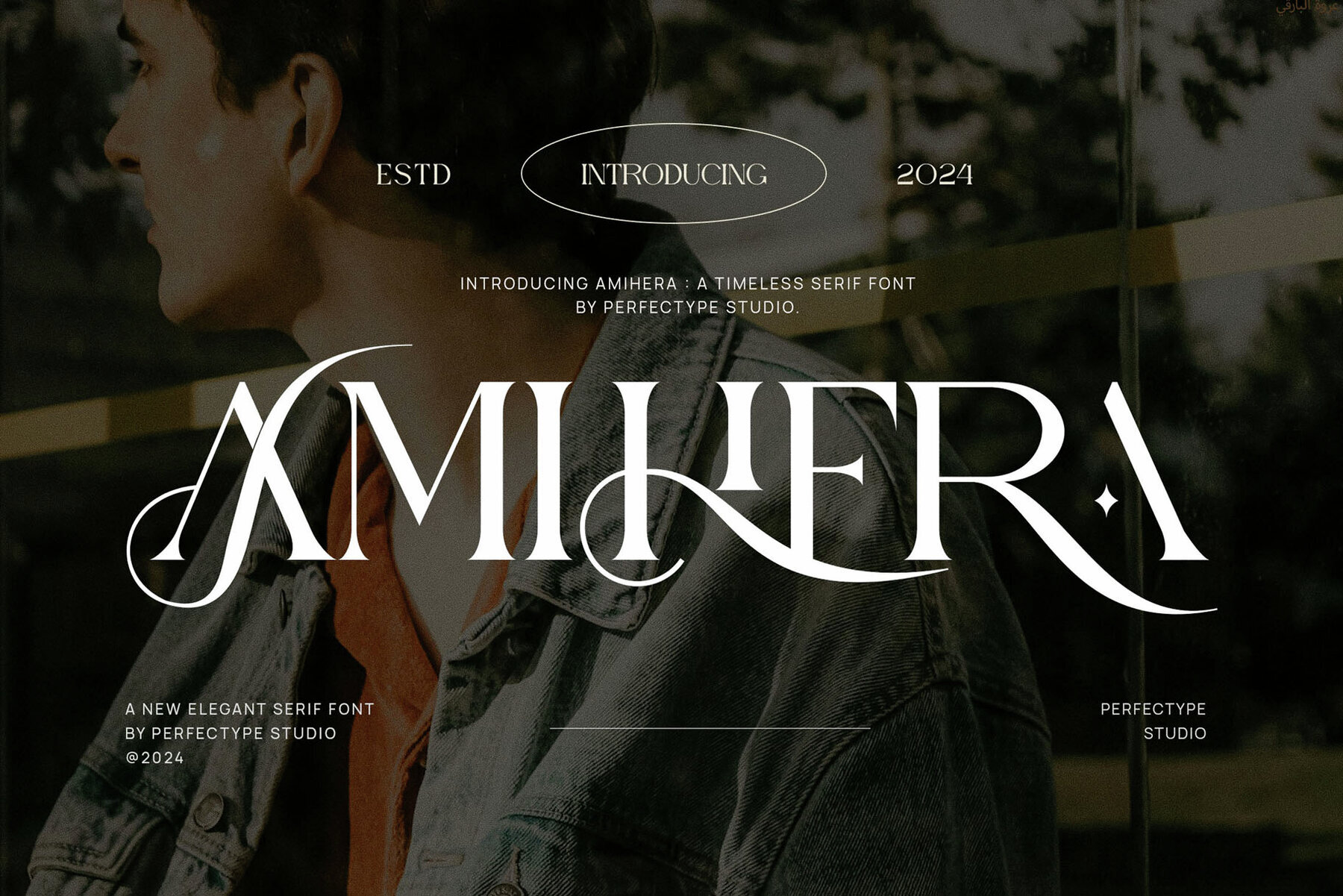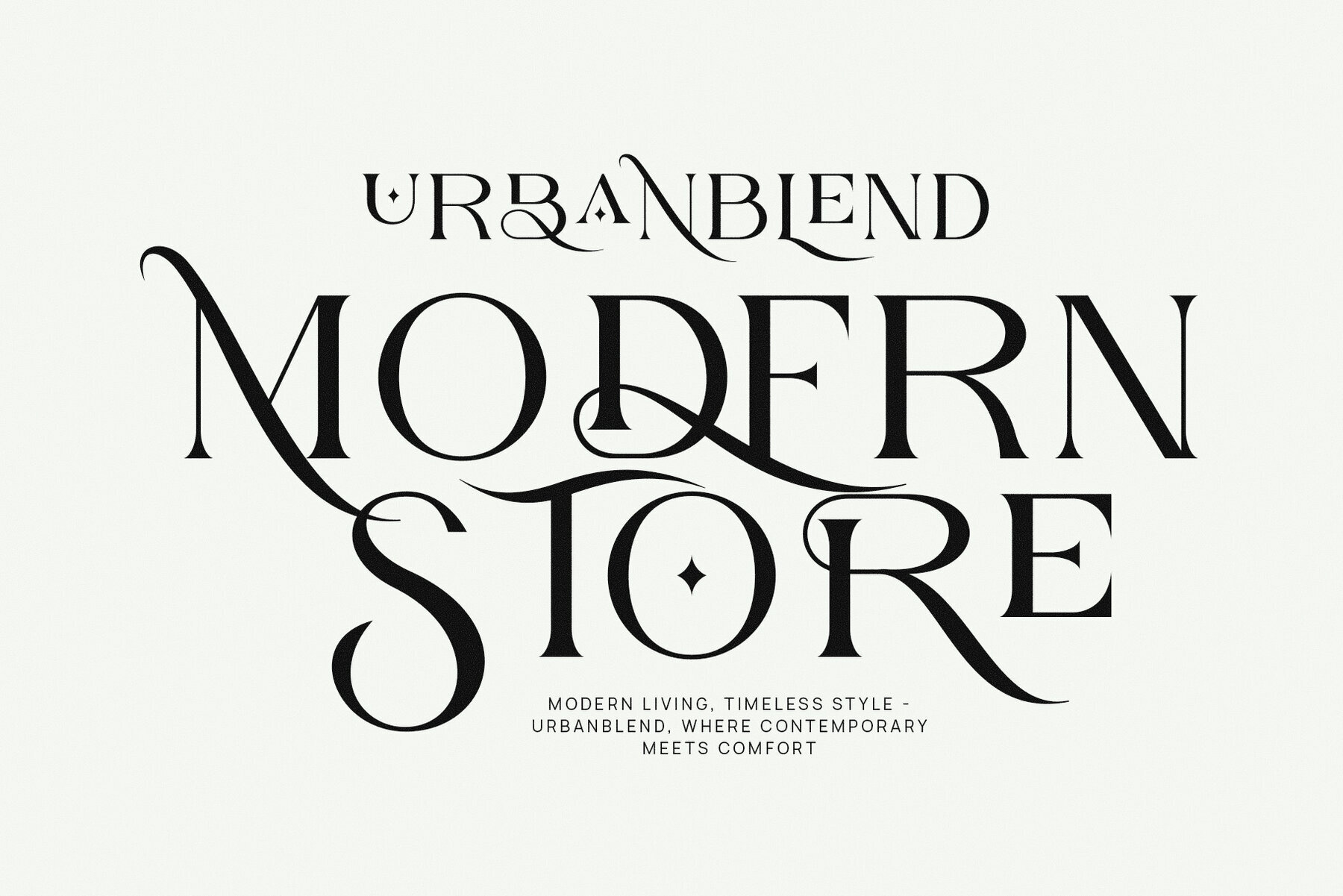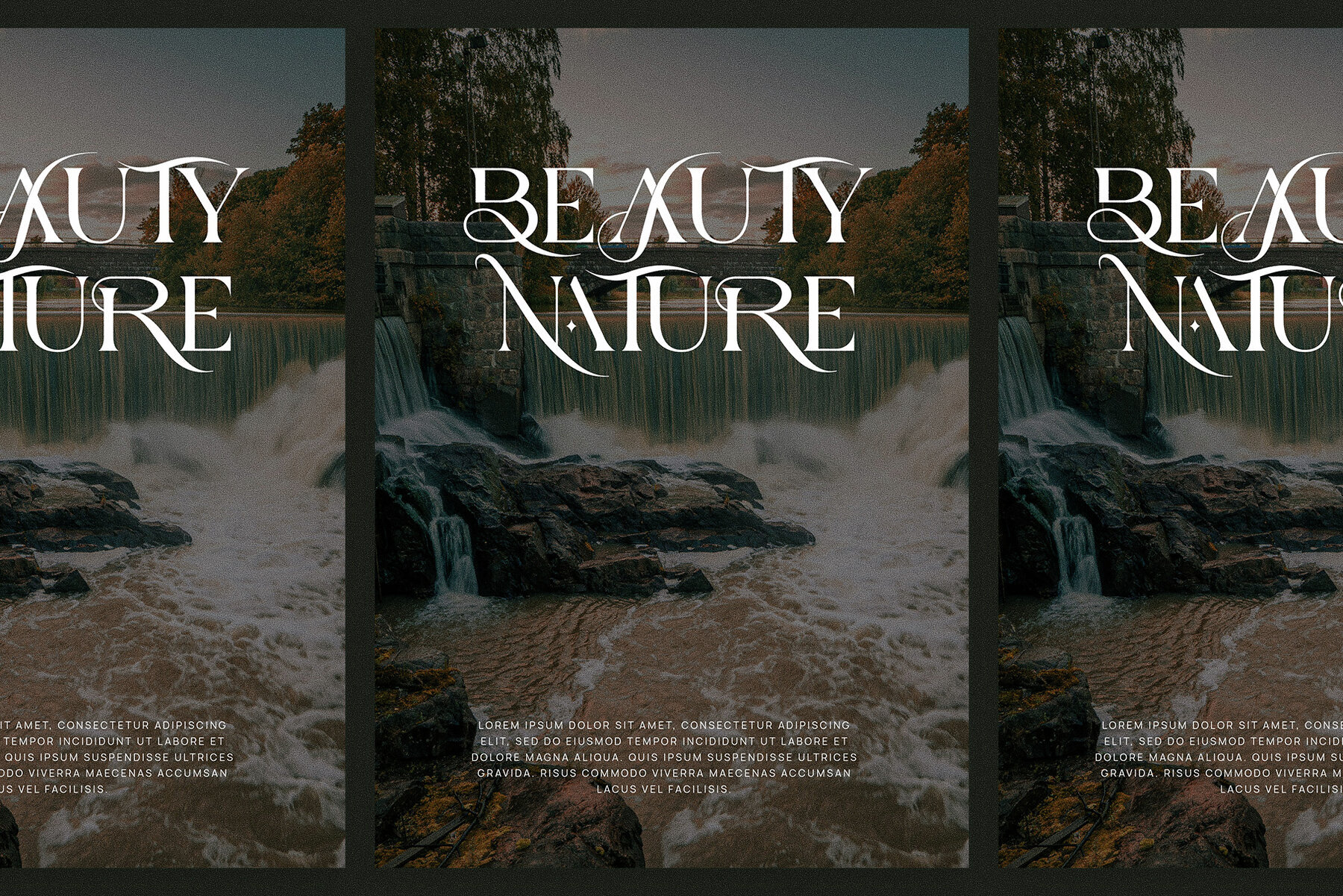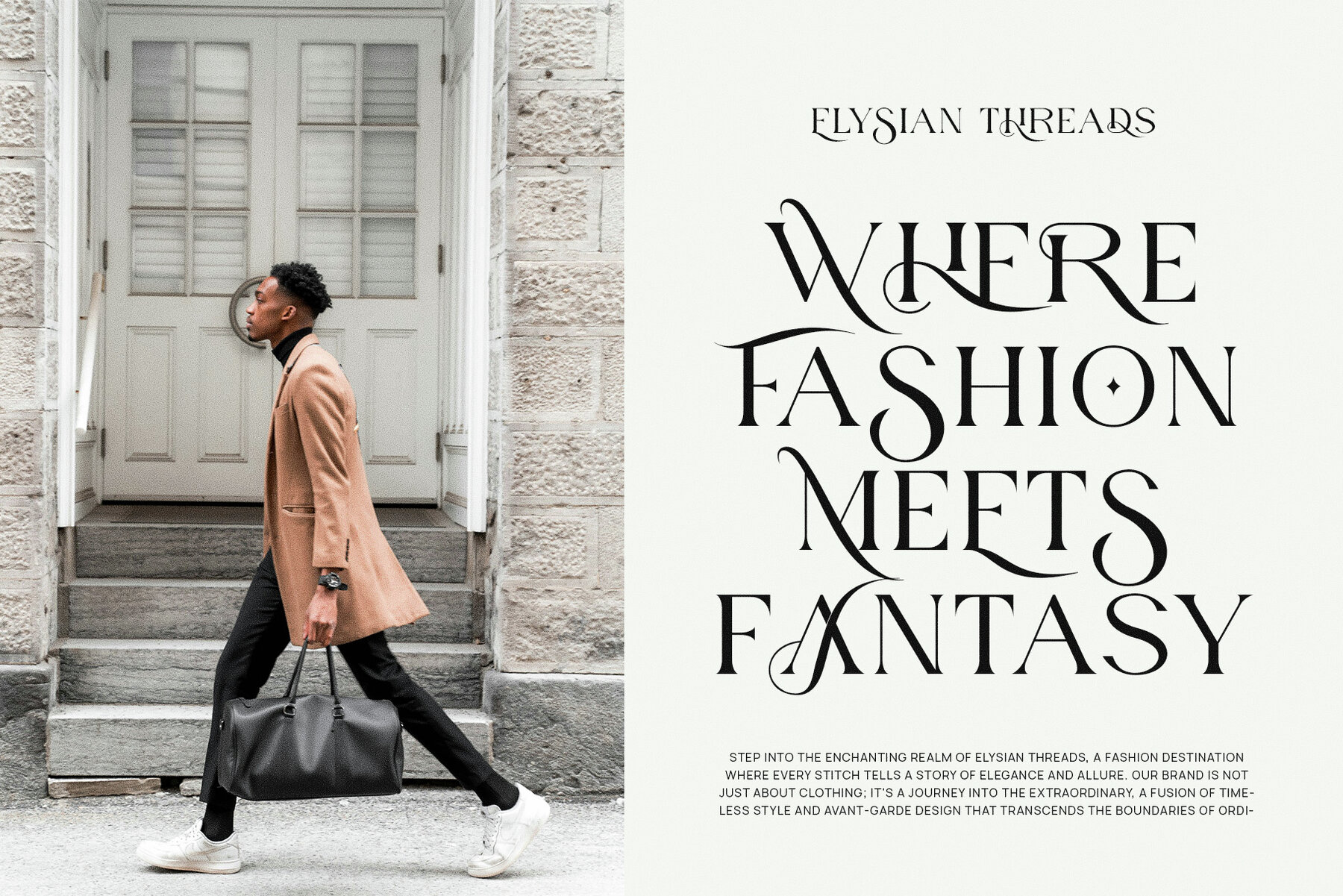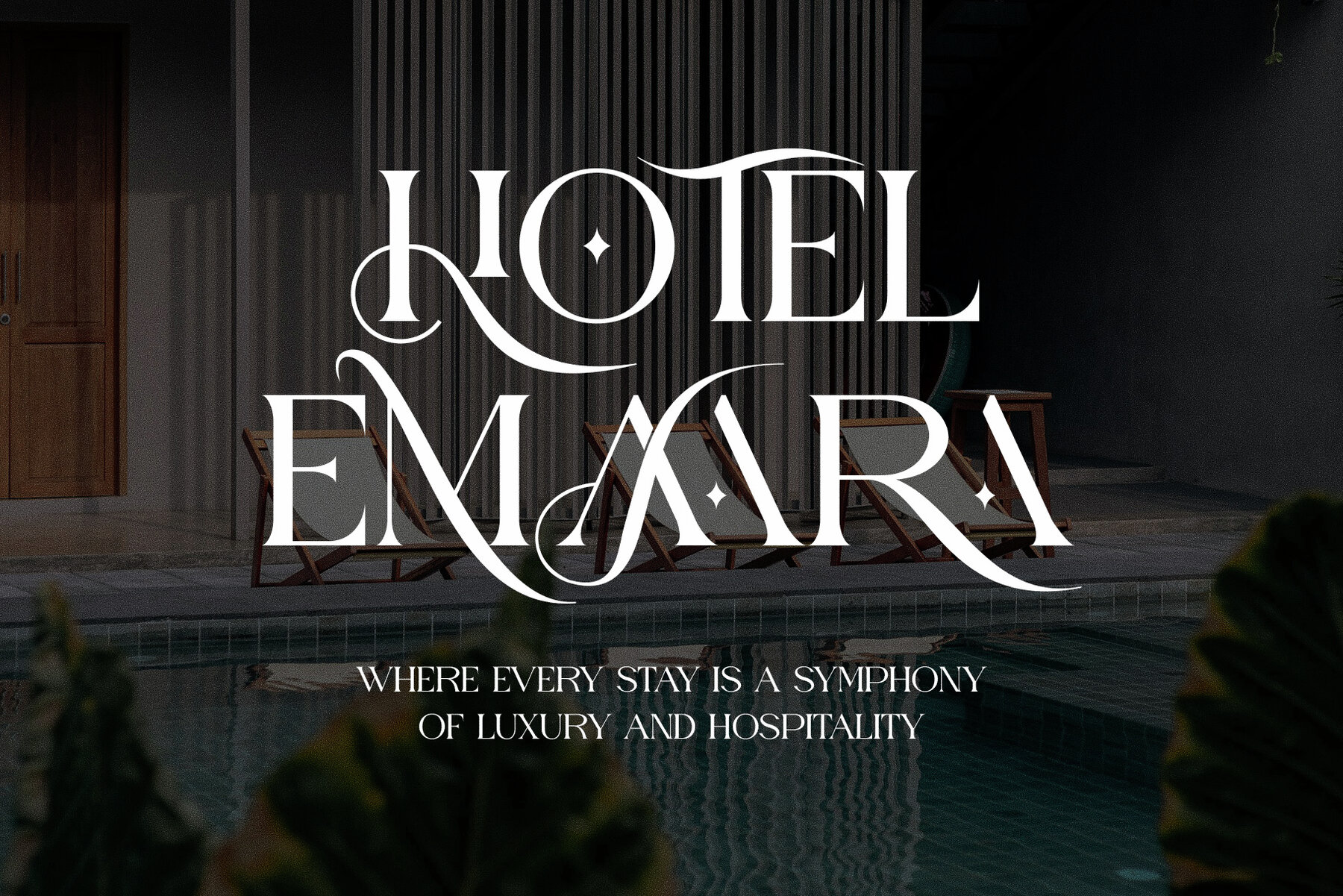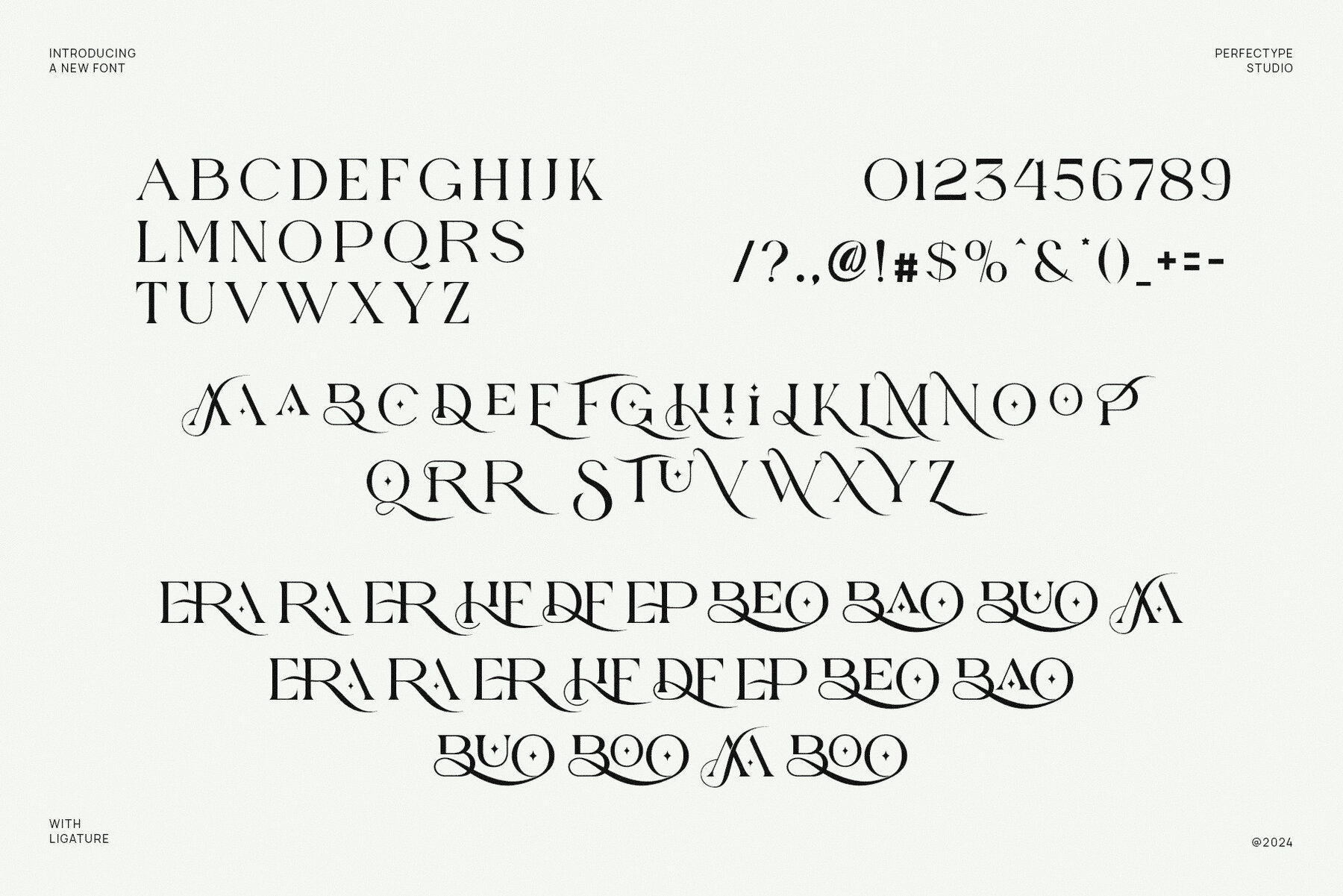
Amihera Font
Amihera
Amihera Elegant Serif Font is a refined typeface that exudes sophistication and modern style. With meticulously crafted serifs and graceful curves, it adds a touch of luxury to any design project. Featuring unique letterforms, elegant ligatures, and a variety of alternate characters, Amihera provides a versatile tool for creating high-end, memorable brand identities. Whether you're designing a logo, website, magazine layout, or advertisement, Amihera ensures your text commands attention with class. Its balanced serifs and fluid connections make it ideal for upscale branding where detail is crucial.
Perfect for industries focused on elegance and luxury, Amihera is the ideal choice for boutique brands, fine dining, fashion, and premium product packaging. Its sophisticated design is effective in both print and digital media, making it ideal for luxurious logos, premium product labels, and stylish websites. Amihera combines timeless elegance with modern appeal, serving as an essential tool for crafting designs that captivate and convey sophistication. For projects demanding refinement, Amihera ensures your message is delivered with clarity and style.